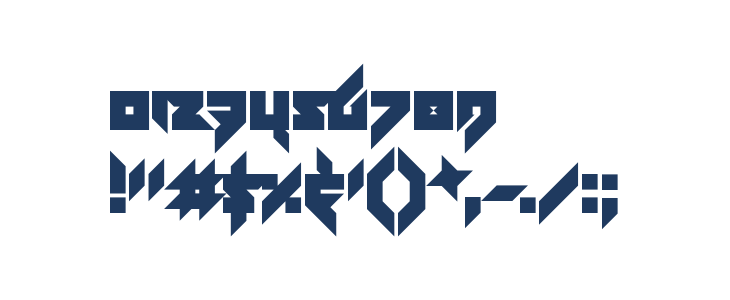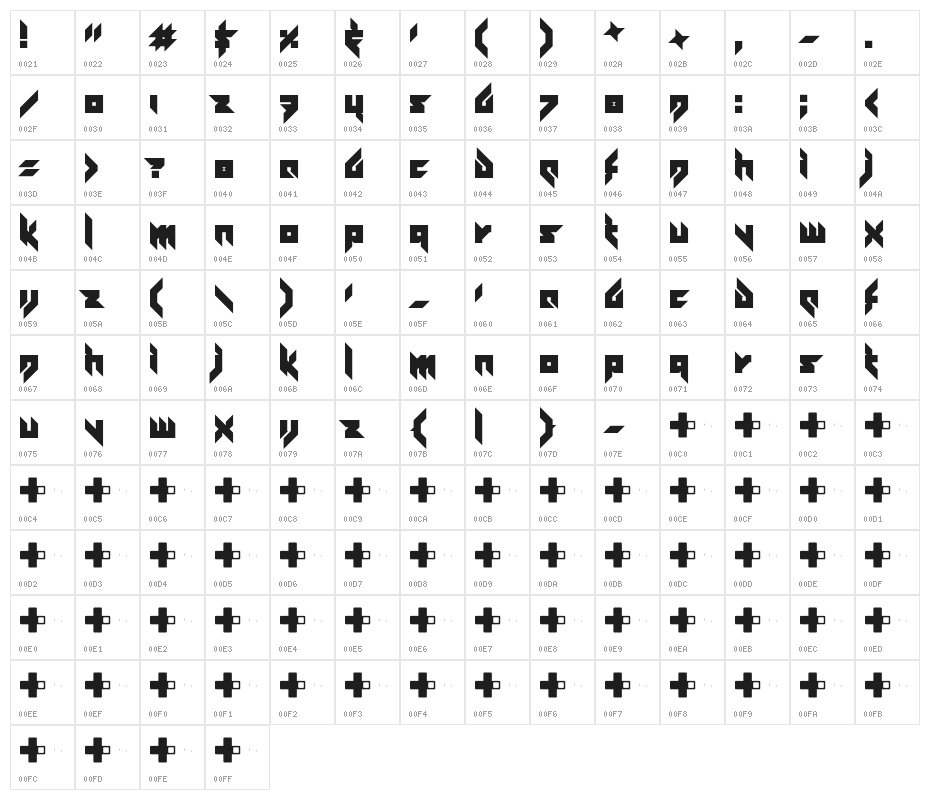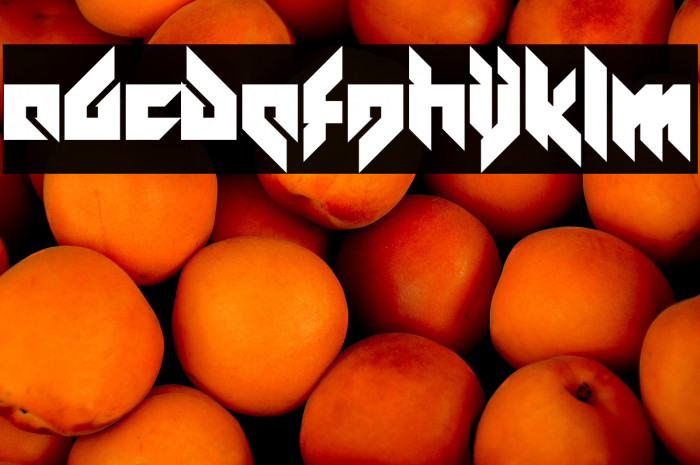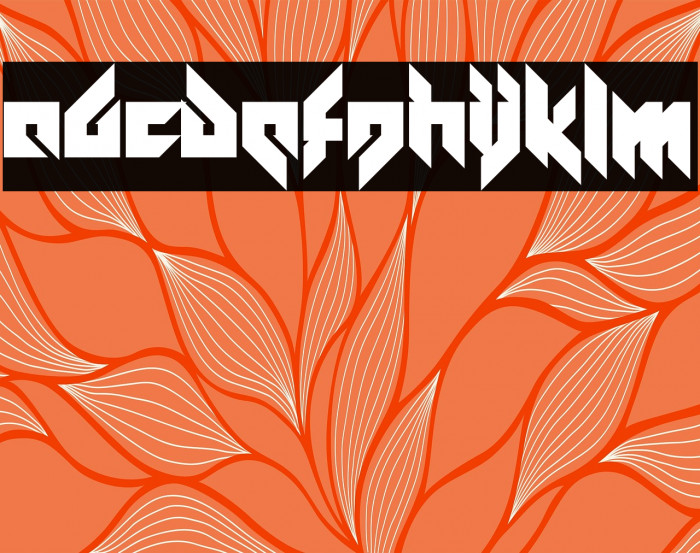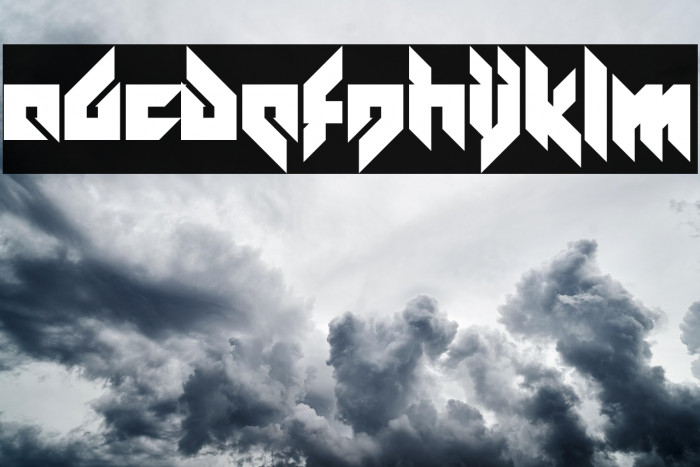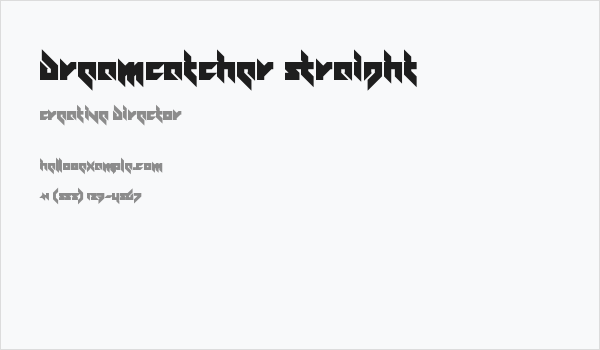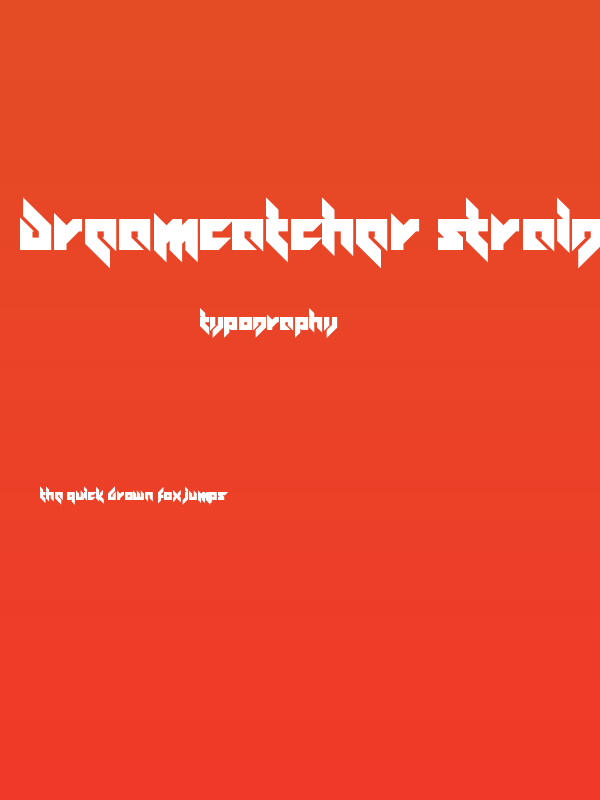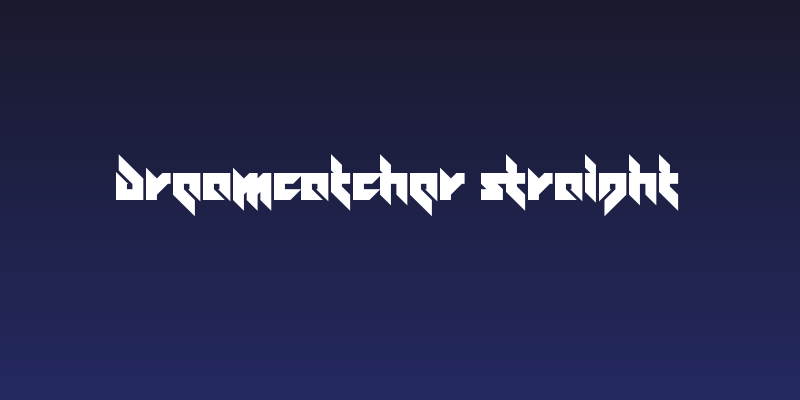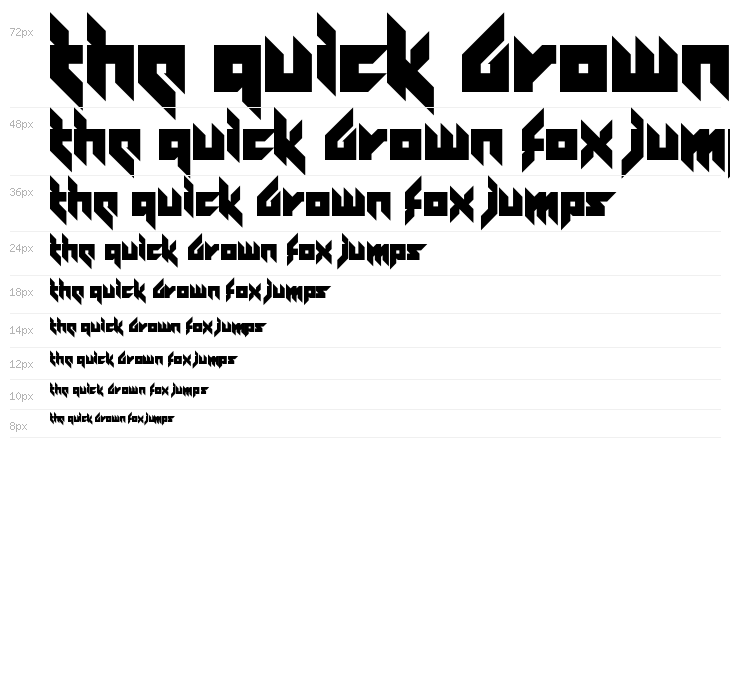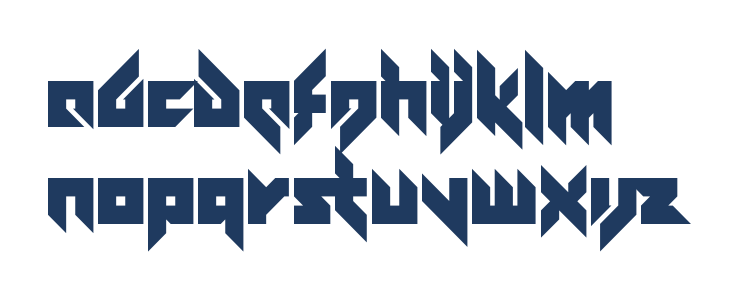
Dreamcatcher Straight Font
Dreamcatcher Straight Description
This font features a bold, geometric design with sharp angles and a futuristic aesthetic. Each character is crafted with precision, showcasing a unique blend of symmetry and asymmetry that creates a striking visual impact. The uppercase and lowercase letters maintain a consistent style, emphasizing strong lines and angular forms. Numbers and special characters follow the same design principles, ensuring a cohesive look across all elements. The font's distinct appearance makes it ideal for projects that require a modern and edgy feel.
| Proposed Projects | Ideal for sci-fi themed designs, video game titles, posters, and branding that seeks a modern and edgy look. |